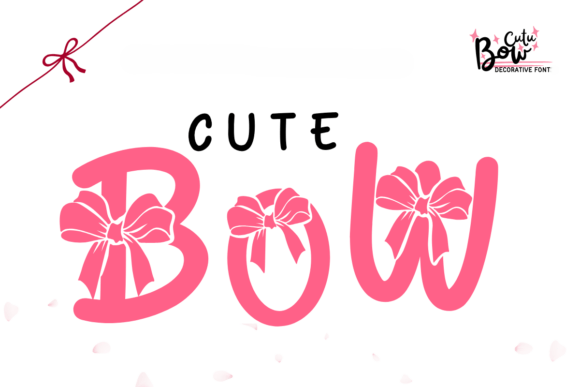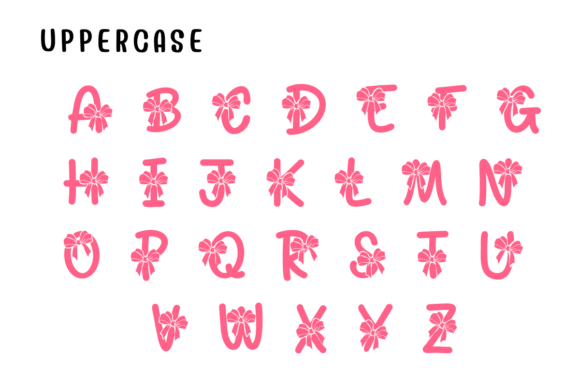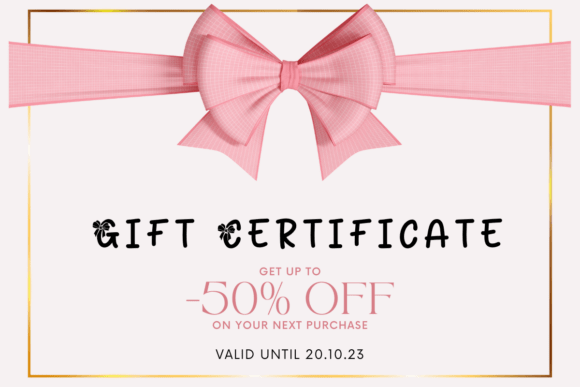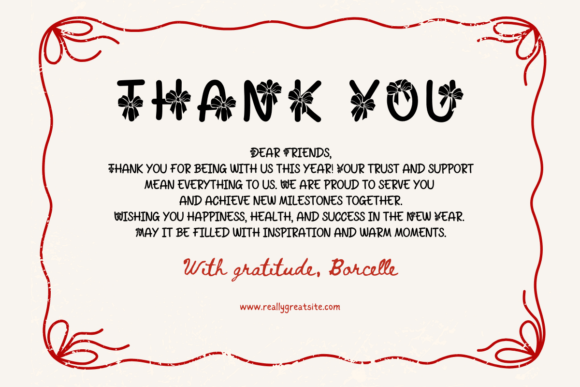
Cute Bow Font
Add a charming twist to your designs with Cute Bow! This playful decorative font features bold letterforms adorned with adorable bows, perfect for girly branding, packaging, and holiday crafts. It’s sweet, fun, and full of personality—ideal for making any design pop with cuteness.